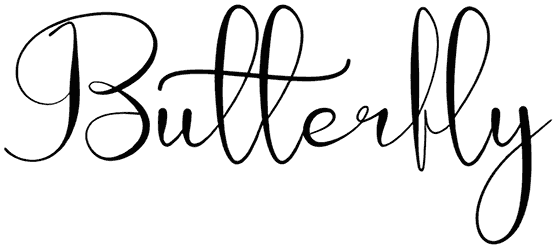
Laylarita Font
Set up your headlines, web pages, logos, or gift cards with high regard by applying a lovely script font similar to Laylarita that comes with a glamorous cursive style. This butterfly font provides two distinctive styles for you and lets you have a wider selection range in the middle of adding a vibe of softness, drama, or dynamism to your graphic content.